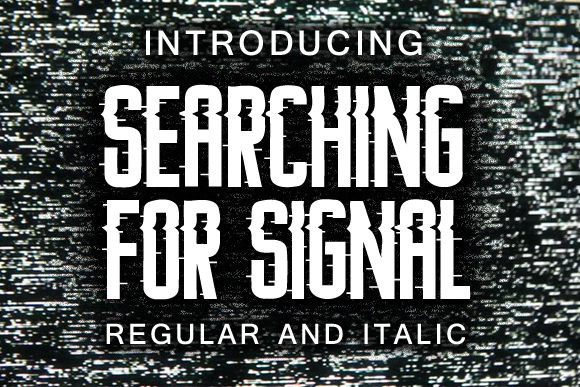
Searching for Signal Font
Searching for Signal Font is perfect for technology company branding, digital communication platforms, radio station identities, telecommunications marketing, satellite technology campaigns, cyberpunk entertainment designs, sci-fi movie titles, electronic music branding, and futuristic interface projects.
What makes Searching for Signal Font exciting is its mysteriously technological character that embodies the persistent quest for connection and communication through digitally-inspired letterforms that seem to flicker between clarity and static interference. The font features transmission-like details with signal-inspired textures that evoke the constant search for meaningful communication in our increasingly connected yet fragmented digital world. Its electronic aesthetic and communication theme make it perfect for brands that want to communicate technological innovation, digital connectivity, and the universal human need to find and maintain meaningful signals in the vast noise of modern information while creating memorable experiences that celebrate our ongoing quest for better communication.
Searching for Signal Font family includes various transmission weights such as Light, Regular, Medium, and Bold variations, often featuring digital alternates and signal-inspired decorative elements. The family may include transmission symbols, electronic ornaments, and communication ligatures that enhance the font's technological aesthetic, providing designers with comprehensive options for creating dynamic typographic compositions that capture the essence of digital communication and signal transmission.